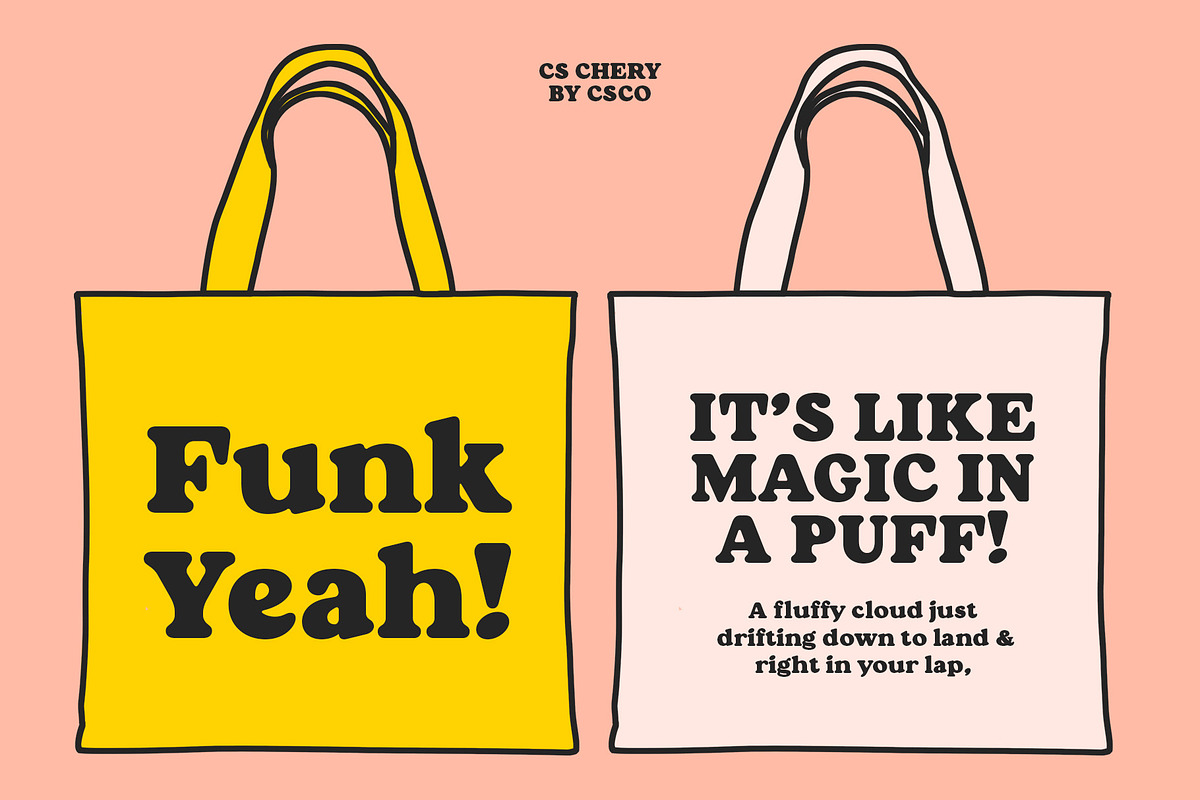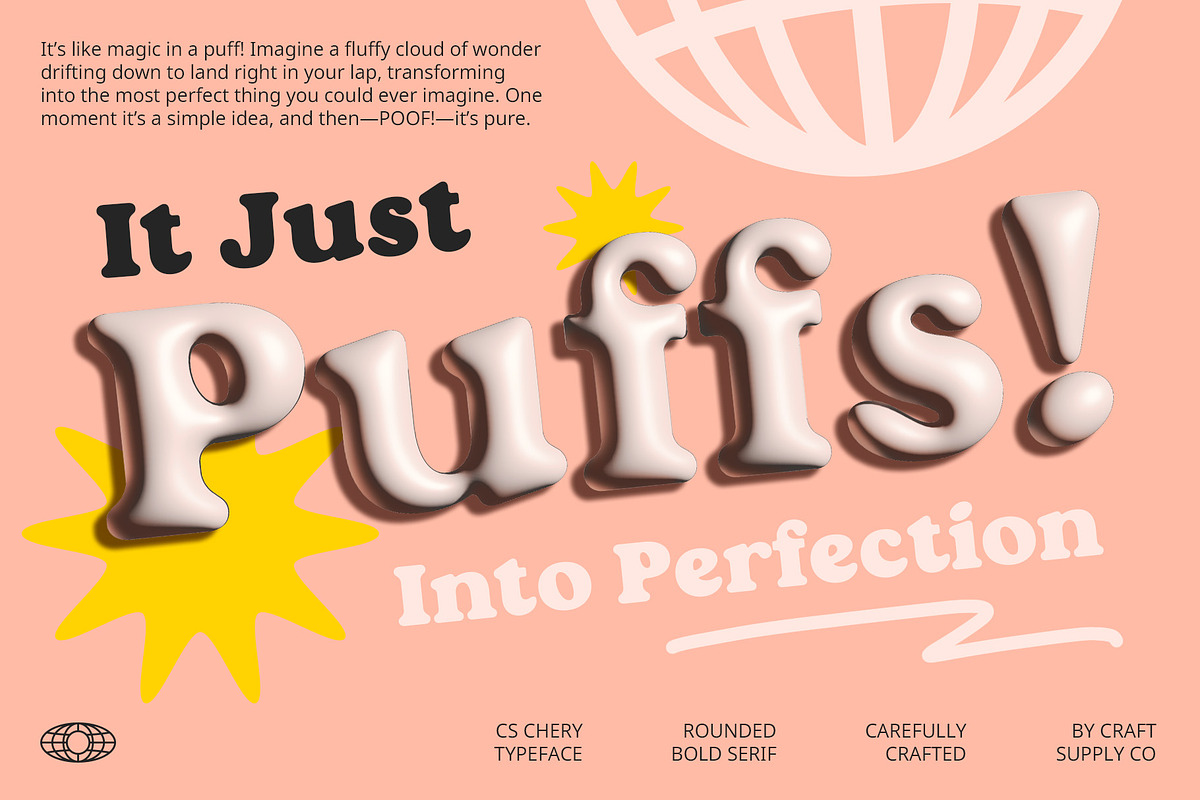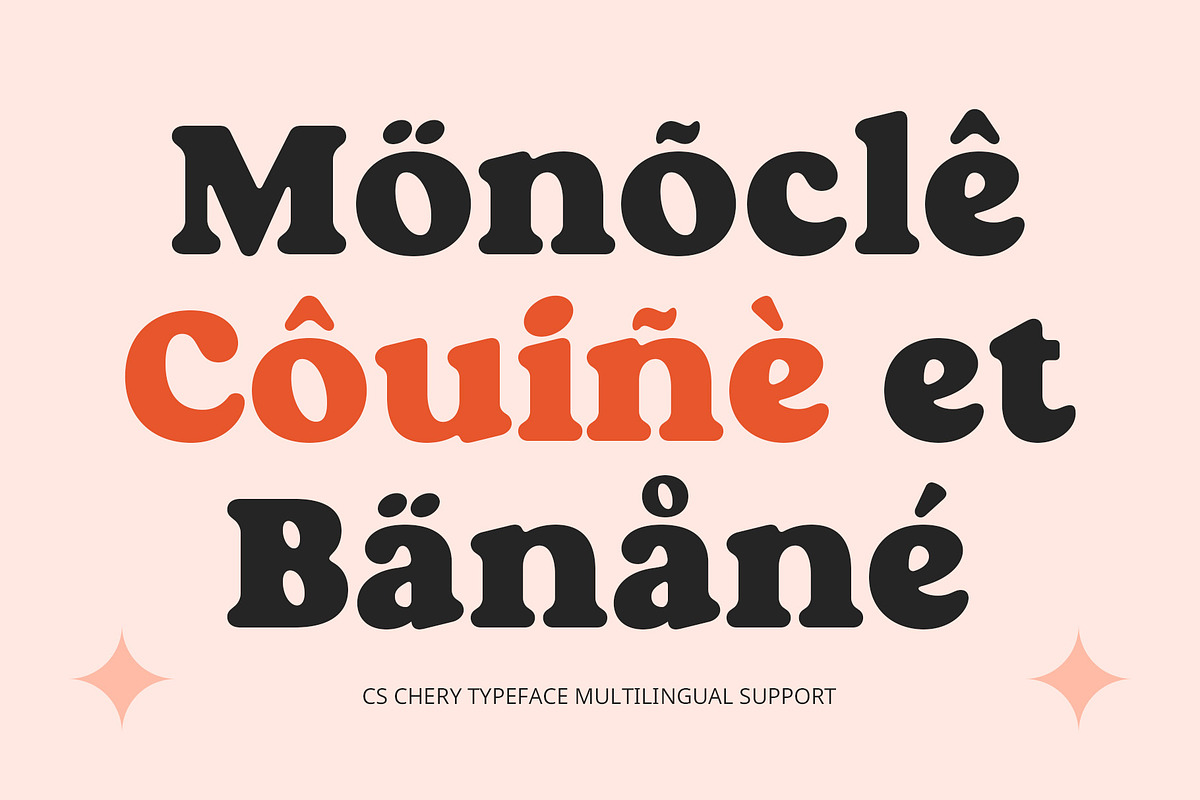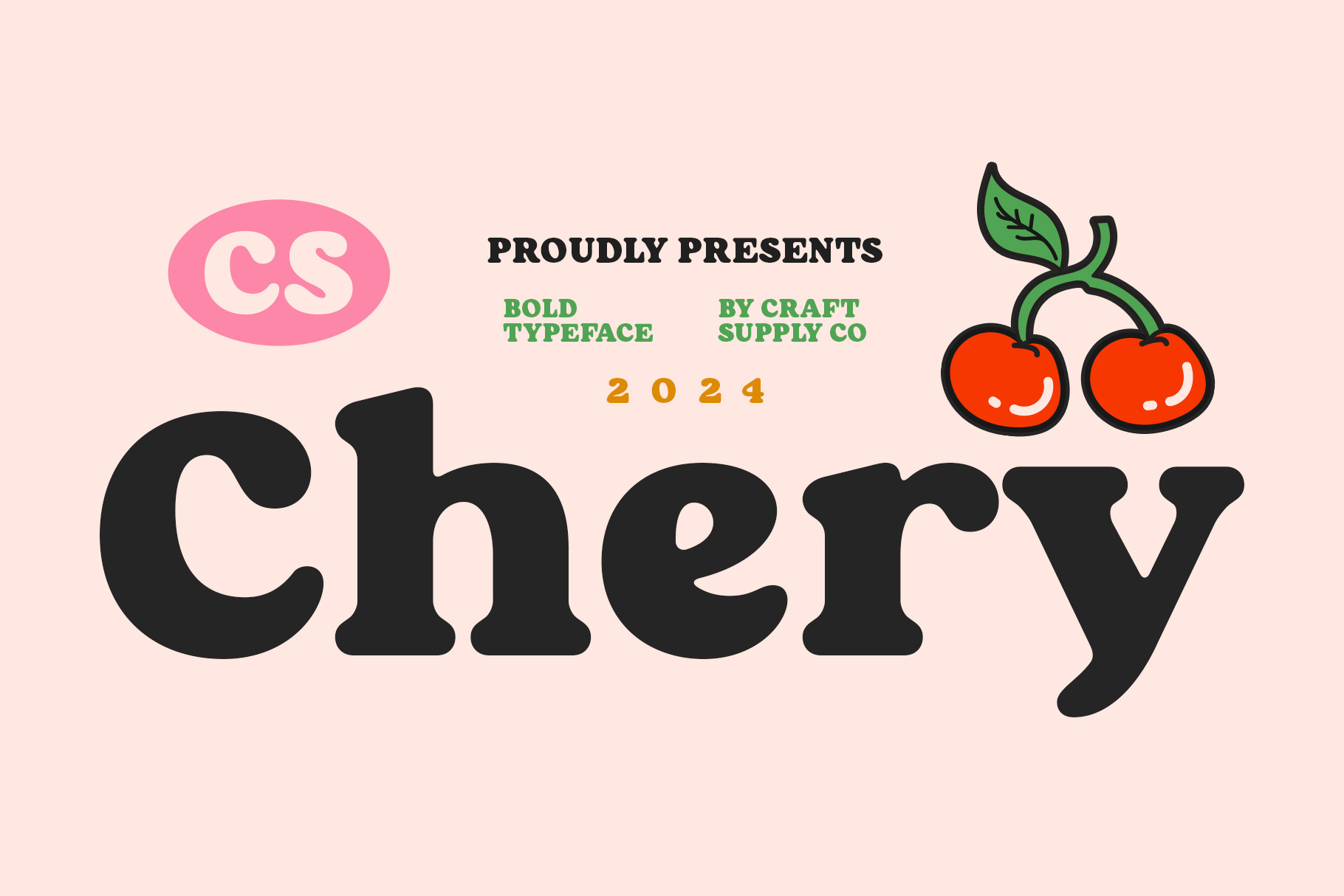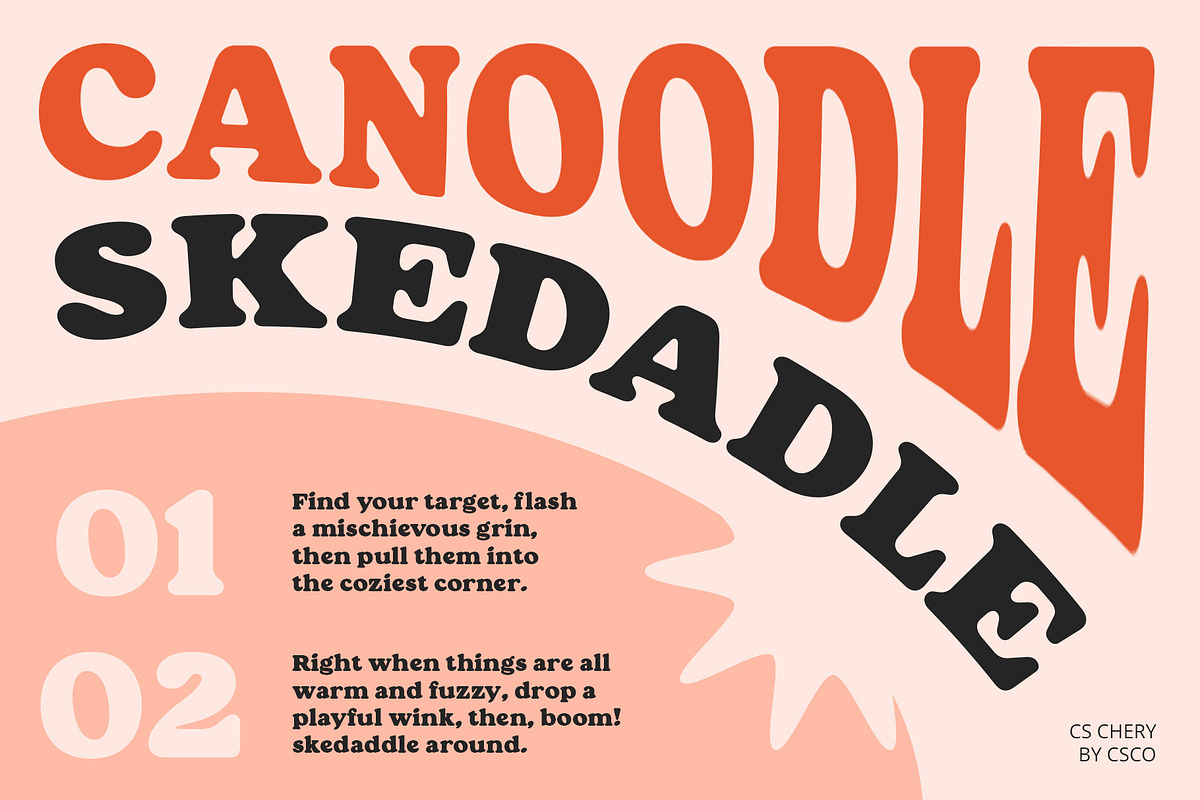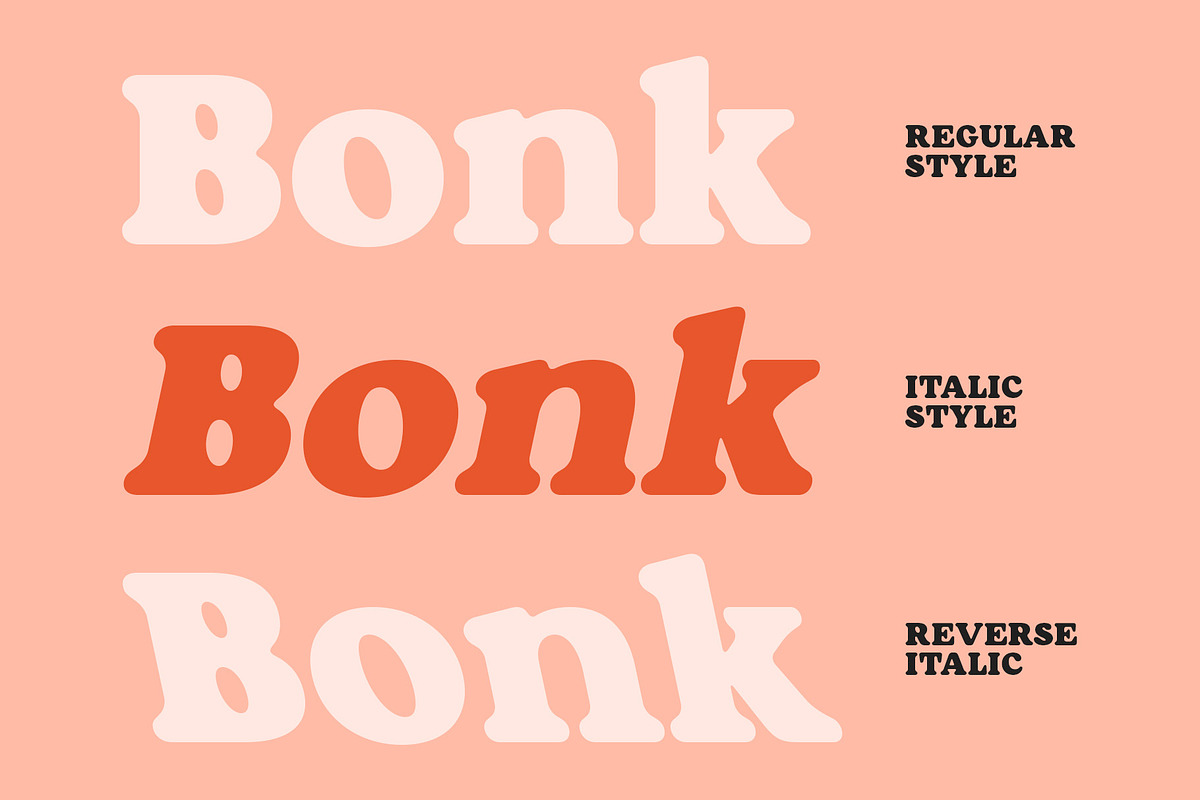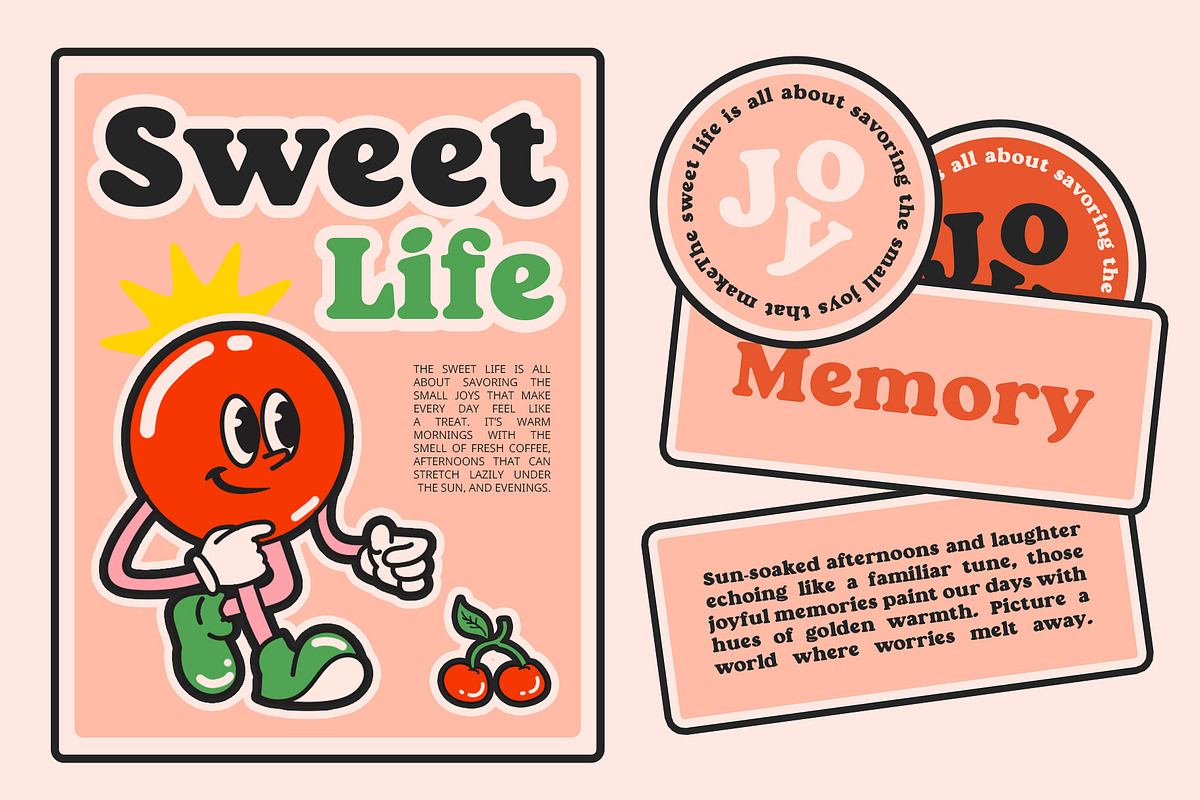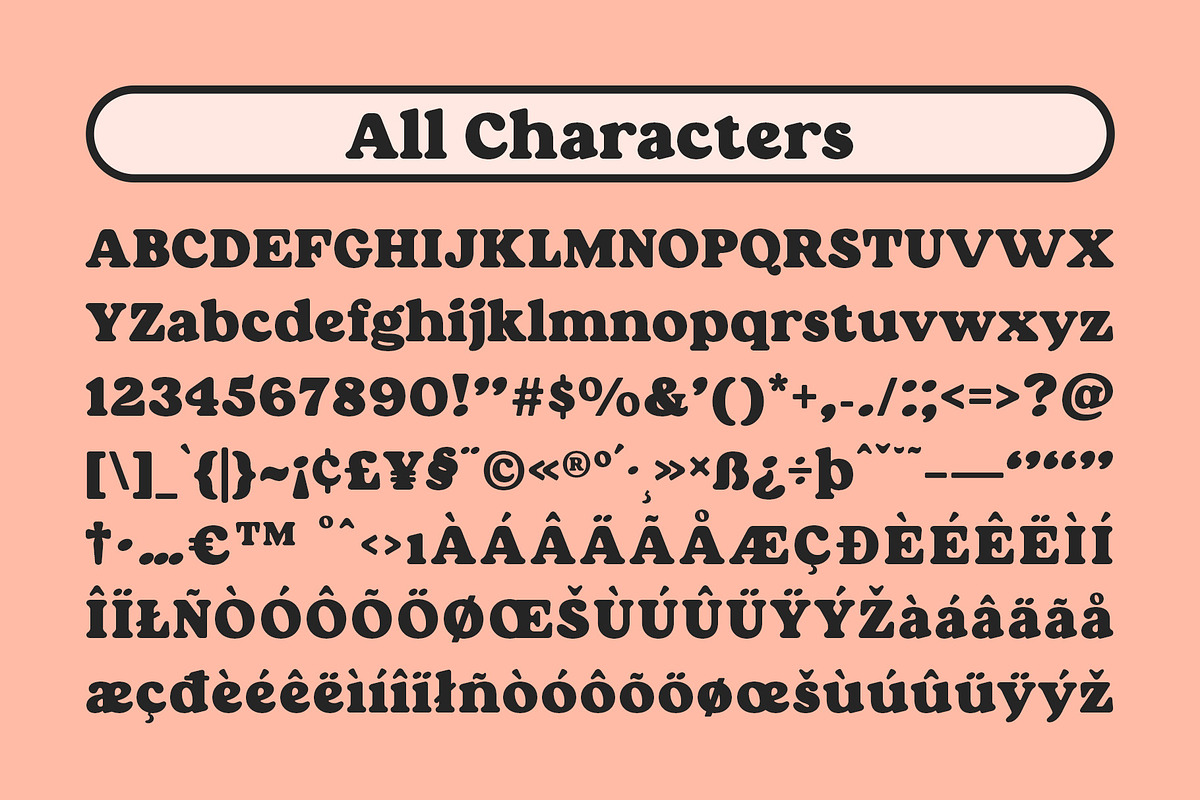
CS Chery – Bold Font
CS Chery – Bold Font: Retro 90s Charm with Rounded Strength
Serif with Rounded and Bold Forms CS Chery is a distinctive serif font that combines rounded and bold forms to evoke a nostalgic 90s vibe. The rounded edges of the letters give the font a softer, more approachable appearance, while the bold weight ensures a strong, prominent presence. This blend of rounded and bold characteristics creates a visually striking effect, perfect for making a memorable impression.
Nostalgic 90s Design Drawing inspiration from the graphic and typographic styles of the 1990s, CS Chery captures the essence of that era with its retro aesthetic. The font’s design is reminiscent of vibrant posters and eye-catching advertisements from the decade, offering a nostalgic touch that resonates with the classic styles of the time. Its retro feel adds warmth and character to any project.
Ideal for Vintage Branding and Promotion CS Chery excels in applications where a classic yet impactful look is needed. Its combination of rounded forms and bold weight makes it ideal for vintage branding, poster design, and promotional materials. Whether you’re creating materials that pay homage to the 90s or simply seeking a font that stands out with nostalgic charm, CS Chery provides the perfect balance of retro appeal and contemporary strength.
- CS Chery Regular
- CS Chery Italic
- CS Chery Reverse Italic